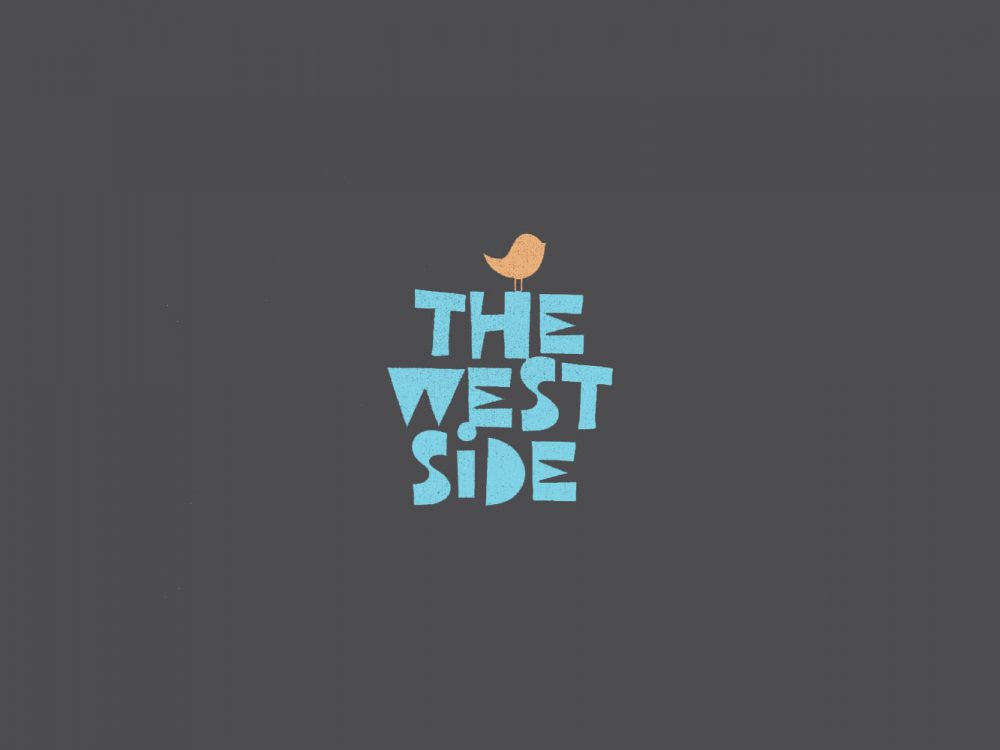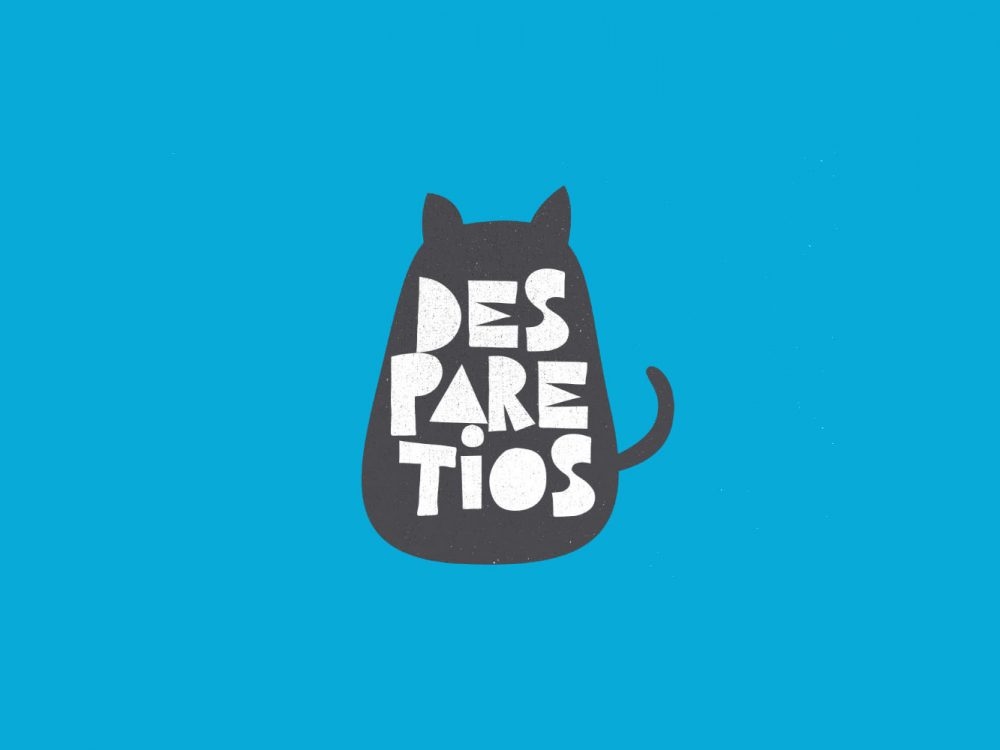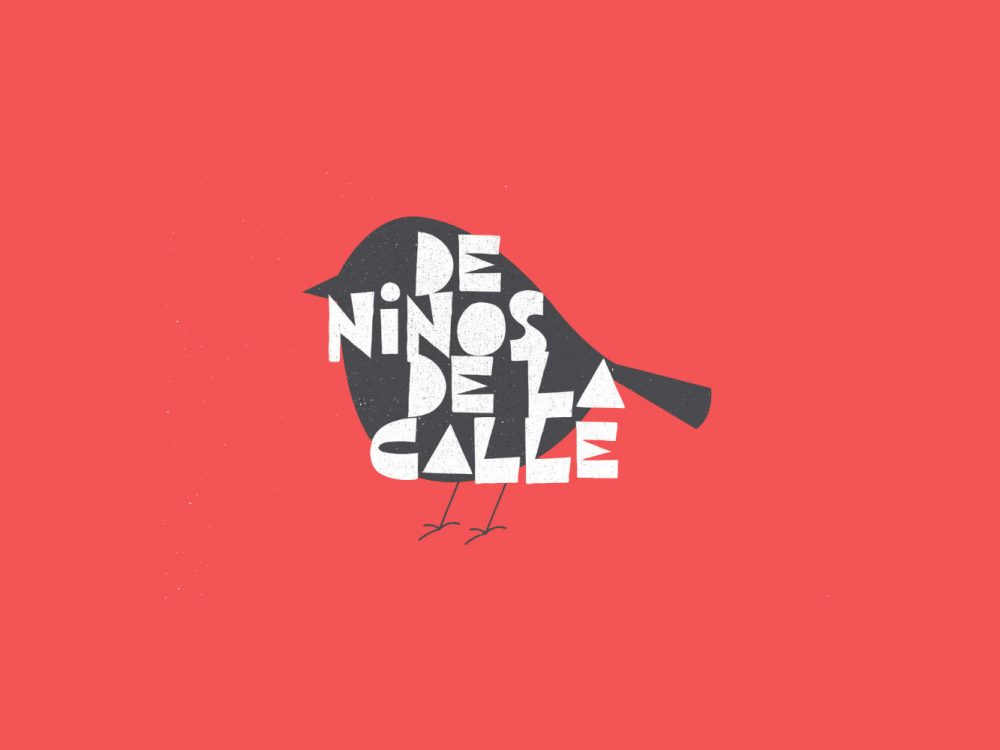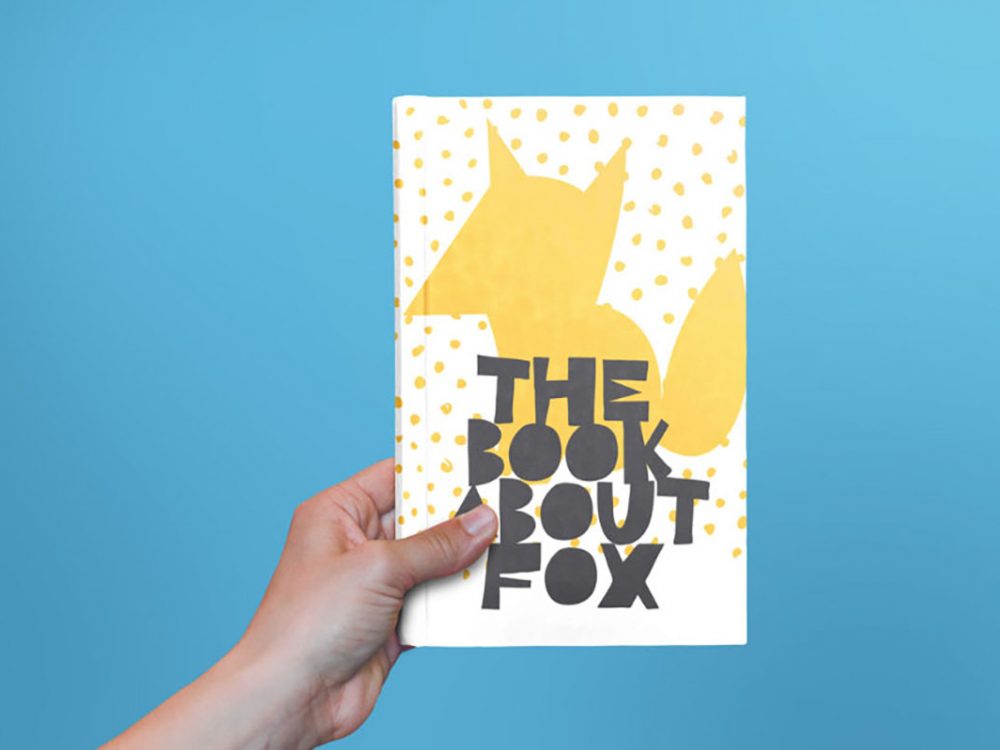
West Side Free Display Font
West Side Free Display Font is an interesting fun font that will help you to profitably substitute any of your design projects. Use this font to create hilariously interesting posters, cards, invitations, branding, flyers, prints, and more.